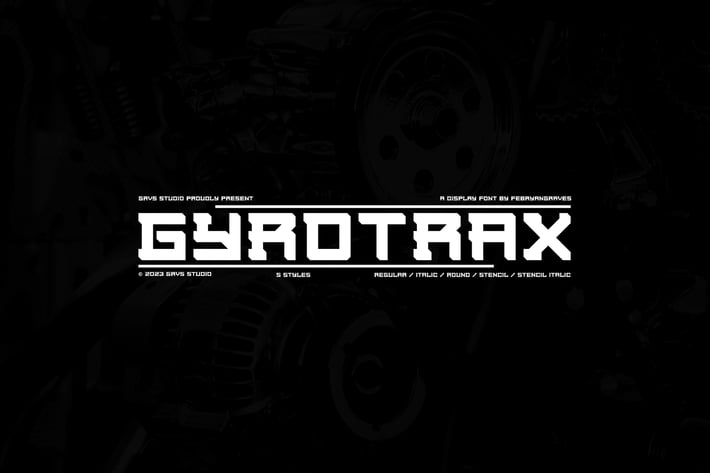
Gyrotrax Modern Display Font
GRVS Gyrotrax Modern Display Font is our new item that is suitable for your team logo, or community logo with Mecha or Cyber theme.